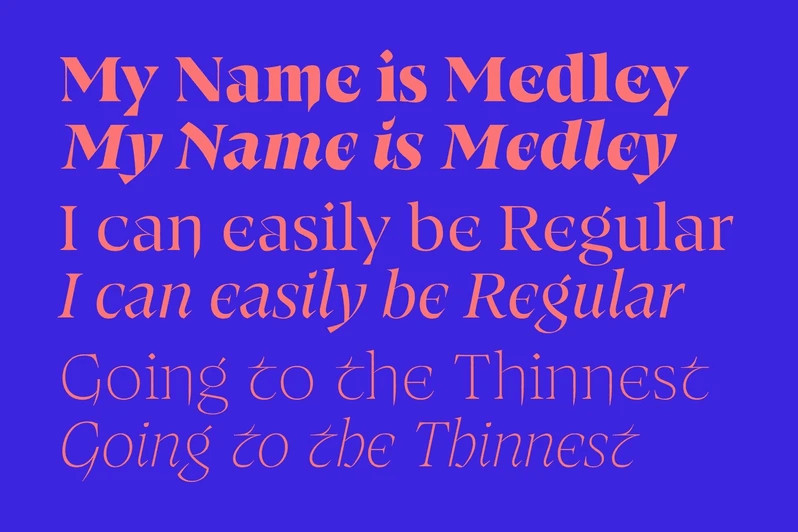
Medley Font
How outstanding! Introducing Medley Font Family, The Medley adventure started during an exploration of the Toulouse Scriptorium online archives. One piece struck us for its elegant, almost decorative, strokes. However, the typeface then became a true ‘medley’, drawing influence from uncial, Carolingian minuscule, and a more traditional approach of brush lettering. It can easily be matched to an incredibly large set of projects, so add it to your creative ideas and notice how it makes them stand out!